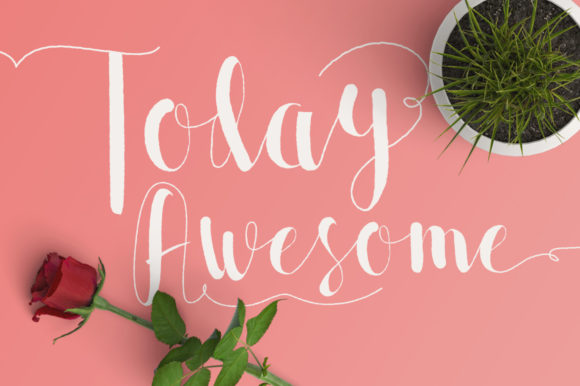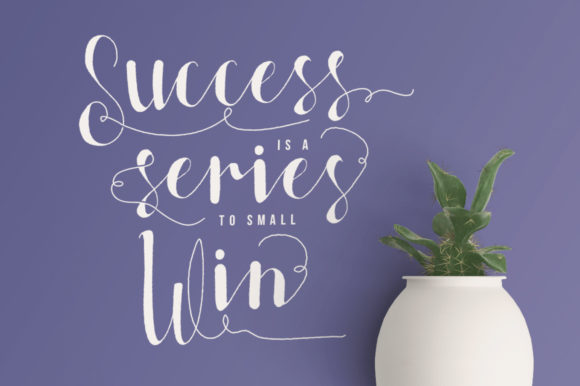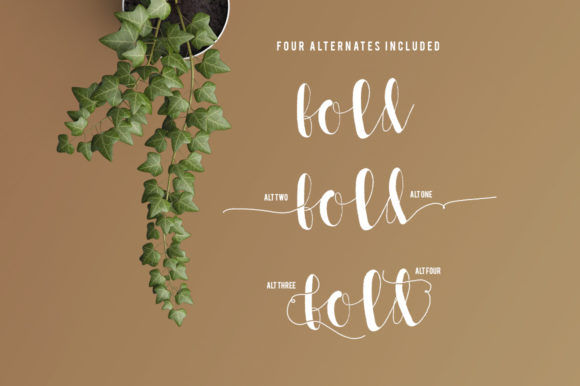
About Allia Font
Allia is an exquisite handwritten font, masterfully designed to become a true favorite. It is perfectly suited to stationery, logos, branding, poster, wedding and much more.